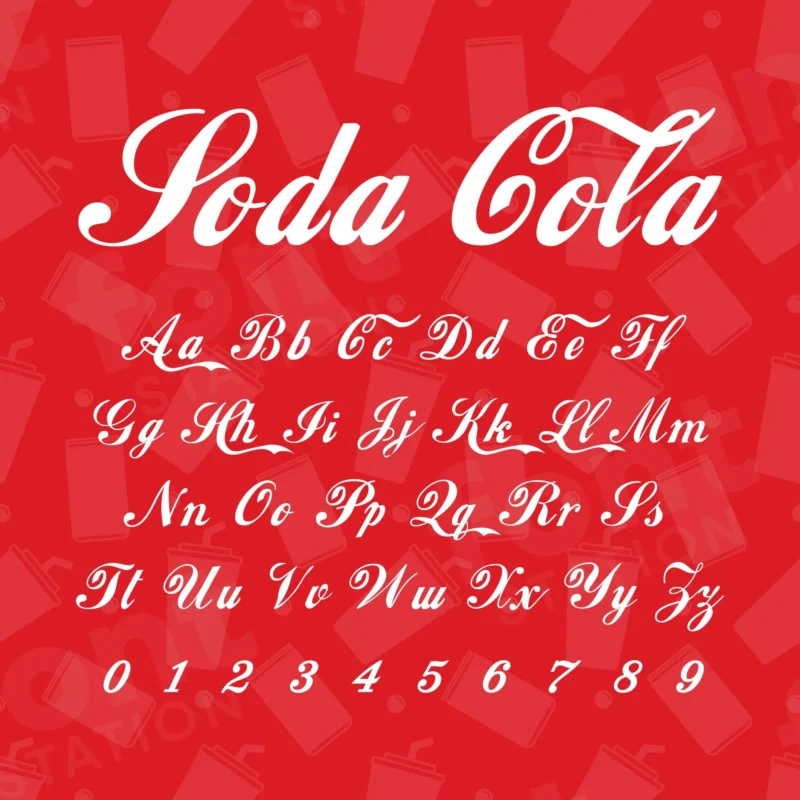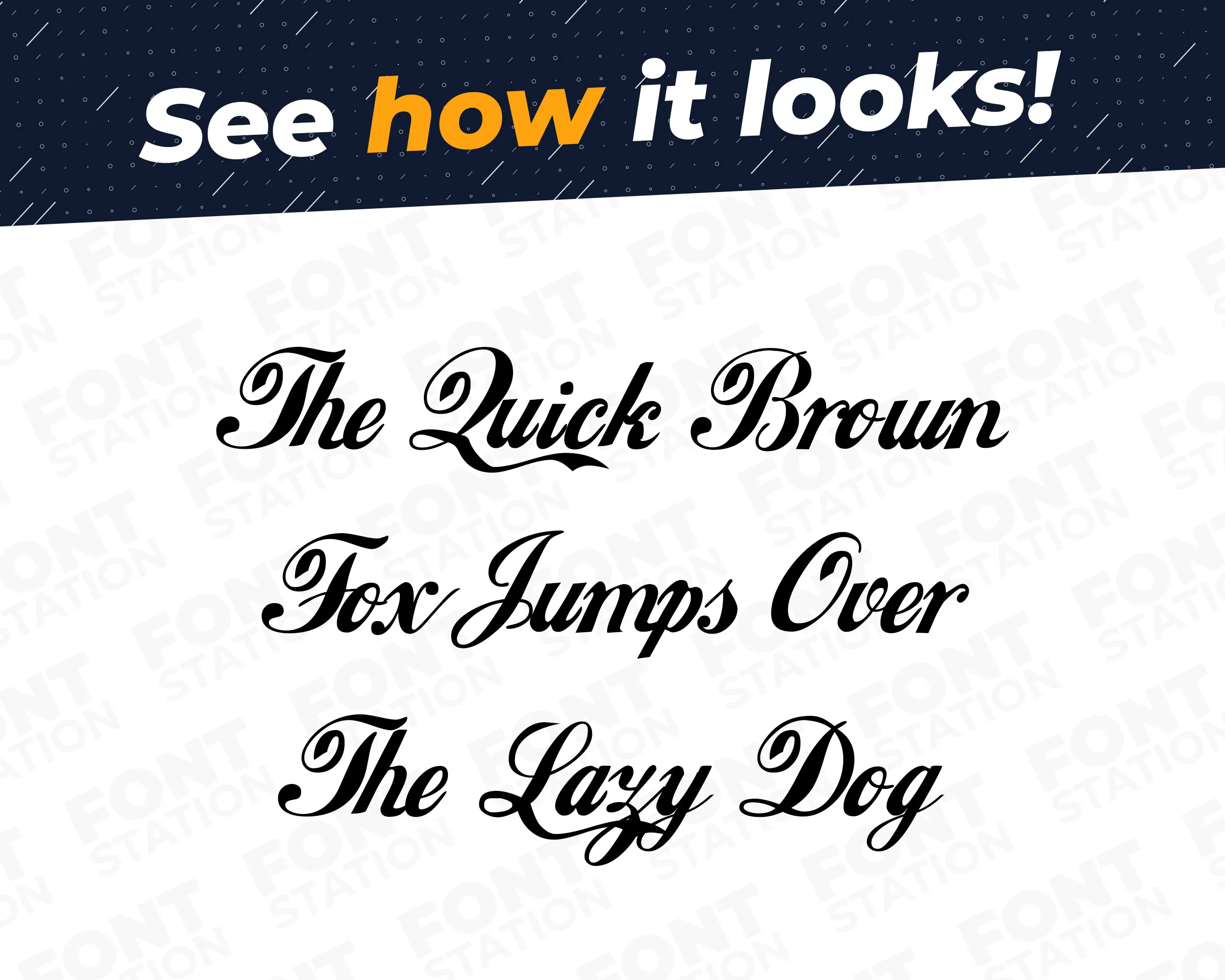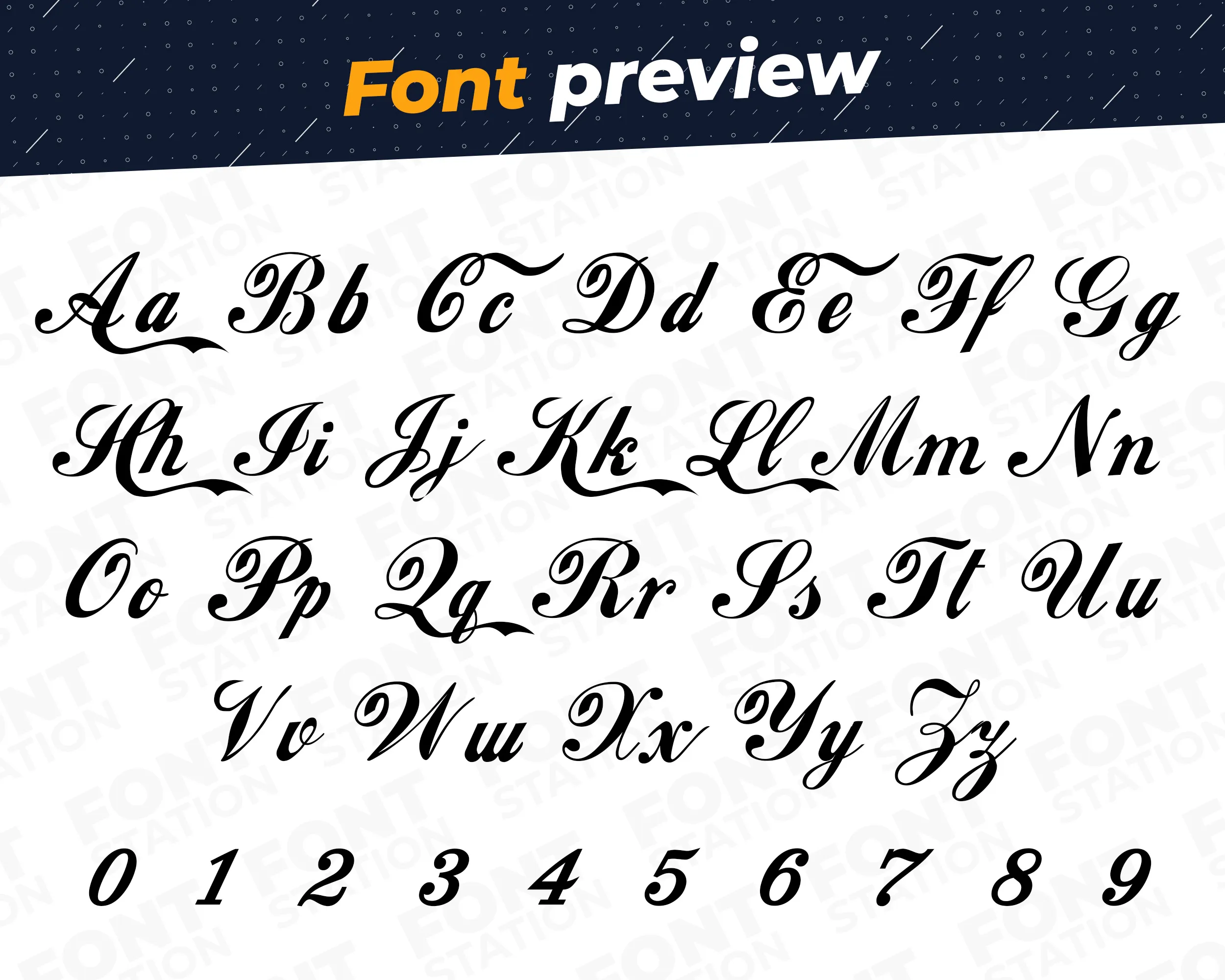
Our Soda typeface, inspired from Coca Cola font
Grab your computer, tablet or other device and start creating right now with our Coca Cola font letters! Our Soda typography is inspired from Coca Cola drink font, making it ideal for various digital creations (logo, word…), sublimation, cake toppers, stickers, event decorations, and more.